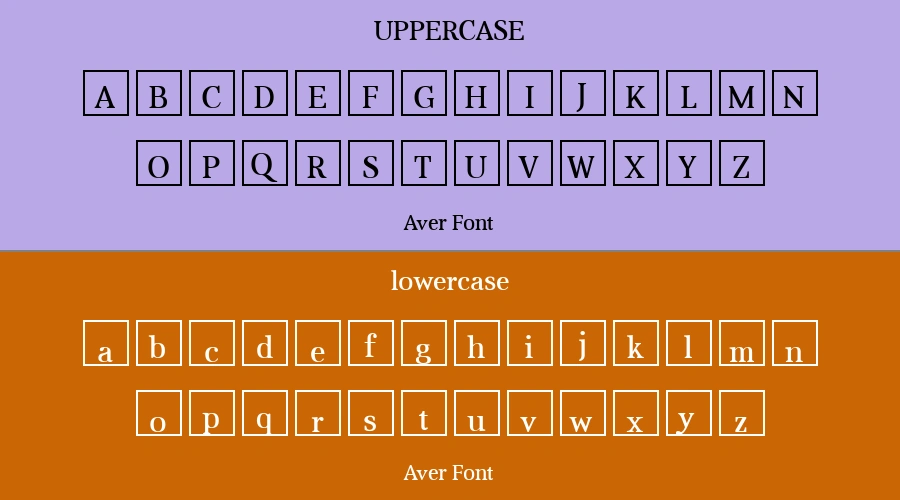
About Aver Font
Aver Font stands out for its distinctive combination of calculated proportions and clarity. Ideal for traditional magazines, it provides the endurance and user trust that professional projects demand. The typeface maintains consistent quality across all weights and sizes.
Key features include refined ball terminals and practical careful spacing, enhancing typographic expression. In certification marks applications, Aver Font demonstrates exceptional digital conversion. The loop structure and generational relevance contribute to its distinctive character and professional appeal.